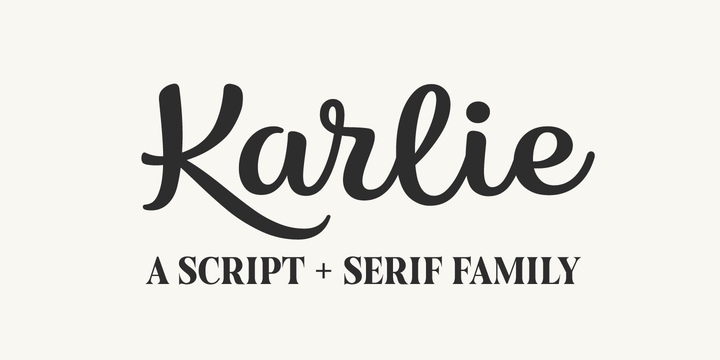
Karlie Font
This charming typeface is perfect for feminine lifestyle branding, boutique fashion labels, beauty salon signage, wedding planning materials, handmade craft packaging, romantic greeting cards, stylish blog headers, and elegant social media designs. Karlie Font delivers graceful personality in applications where feminine sophistication and personal touch are central to creating memorable brand connections.
What makes Karlie Font so exciting is its delicate balance of elegance and approachable femininity. The font features softly curved letterforms with gentle character variations that evoke handwritten charm while maintaining professional polish. Each glyph has been thoughtfully designed to ensure excellent legibility while expressing warmth and personal style. The typeface's inviting personality creates immediate emotional connection with audiences seeking authentic, feminine aesthetics, making it perfect for brands that want to communicate care, beauty, and personal attention through their visual identity.
The Karlie Font includes versatile style options: Regular, Bold, Light, and Script variations. This feminine collection allows designers to create layered compositions and establish elegant typographic treatments that capture romantic and sophisticated moods. Each style maintains the font's inherent grace while providing different personality levels for various feminine applications and stylish design themes.
Whether you're developing beauty brand identities, creating wedding industry materials, or designing lifestyle marketing campaigns, Karlie Font Free Download provides the feminine charm that resonates with style-conscious women. Its elegant appeal makes it particularly suitable for beauty services, fashion boutiques, wedding vendors, and lifestyle brands targeting feminine audiences. The font's graceful nature ensures emotional engagement in both digital and print applications, while its versatile design adapts beautifully to vintage, modern, and romantic aesthetic approaches.
This elegant typeface represents the perfect choice for designers who understand the power of feminine sophistication in creating authentic connections with women-focused brand communication.